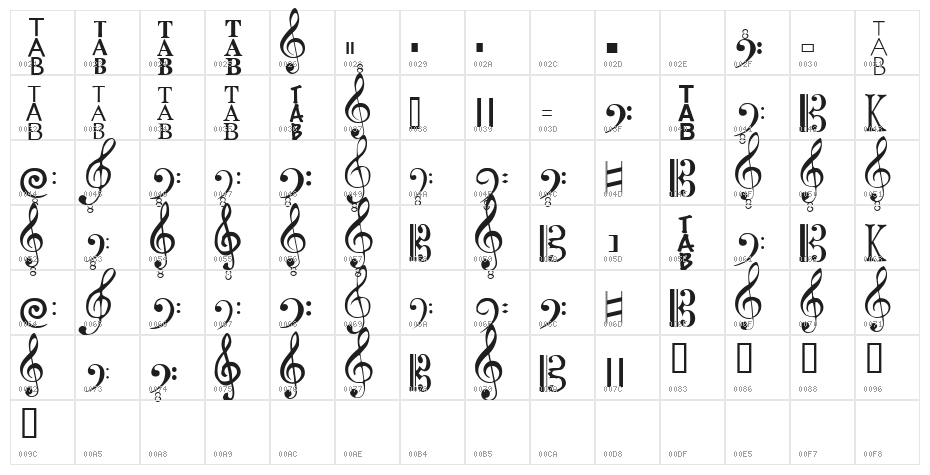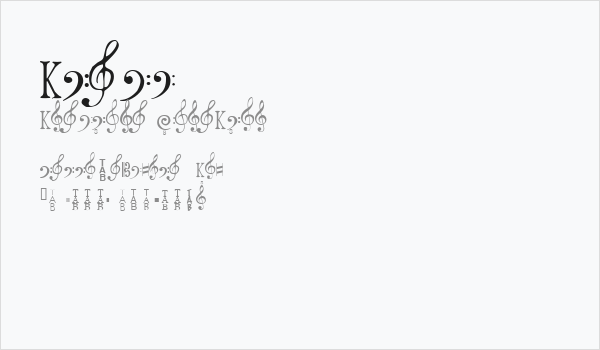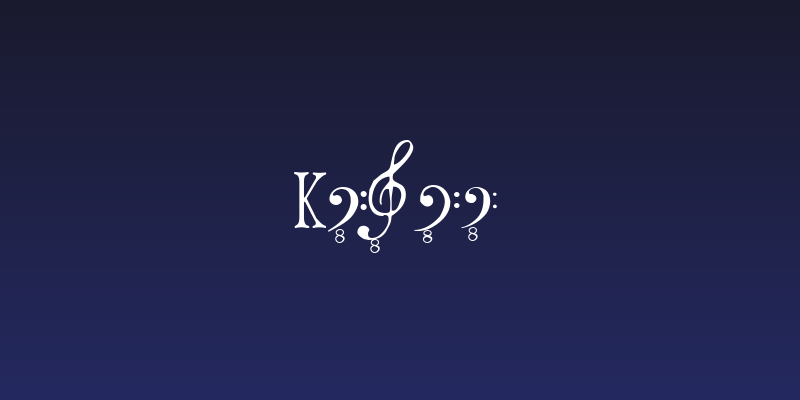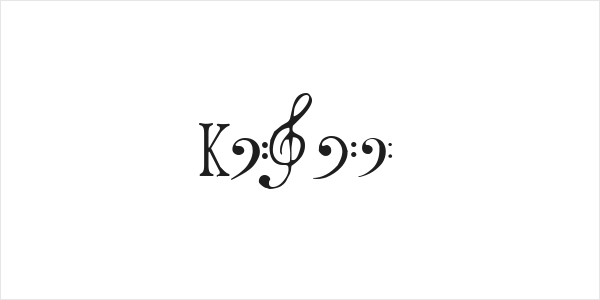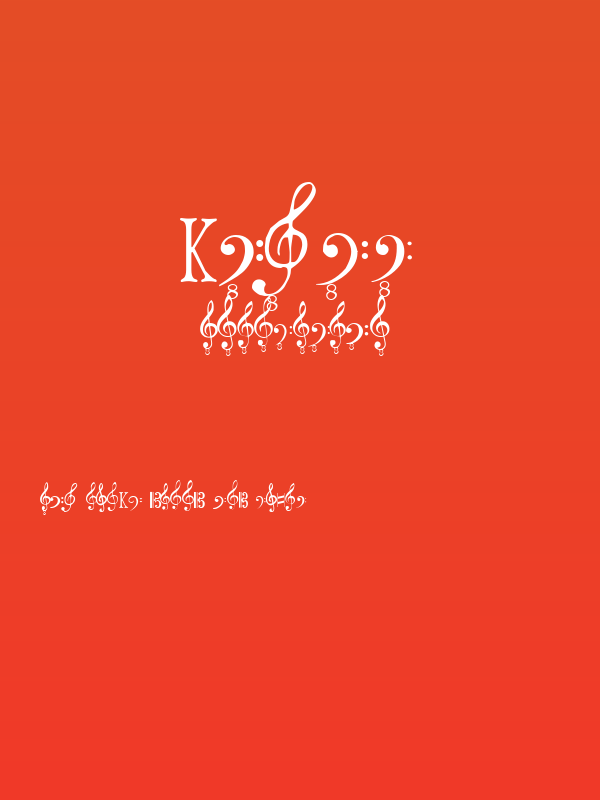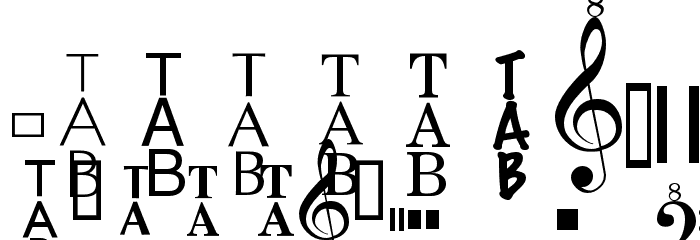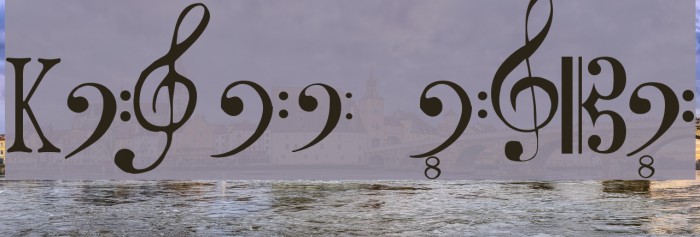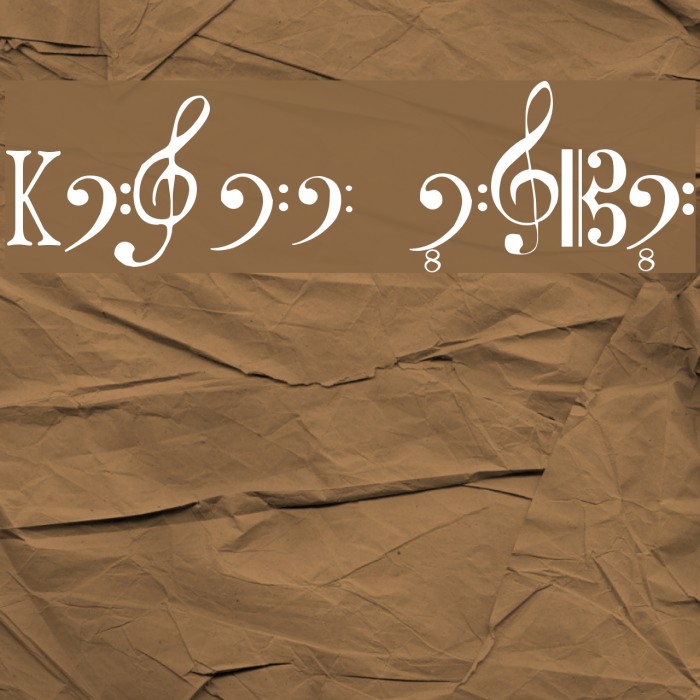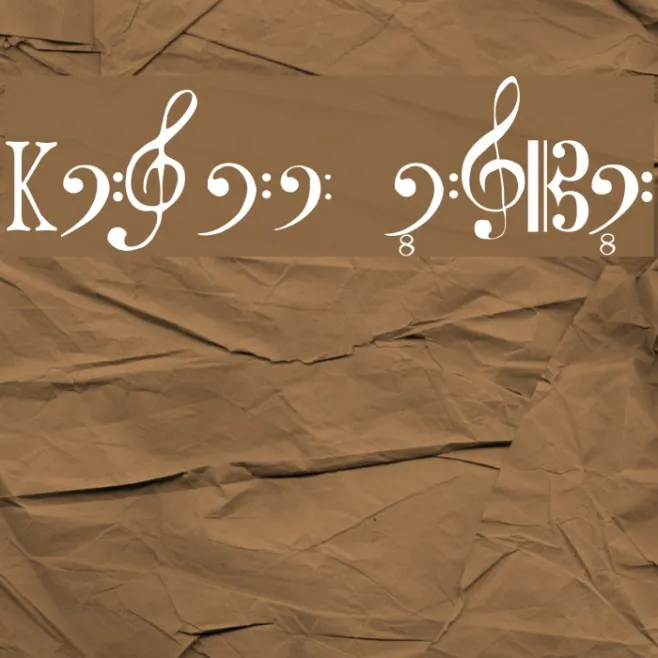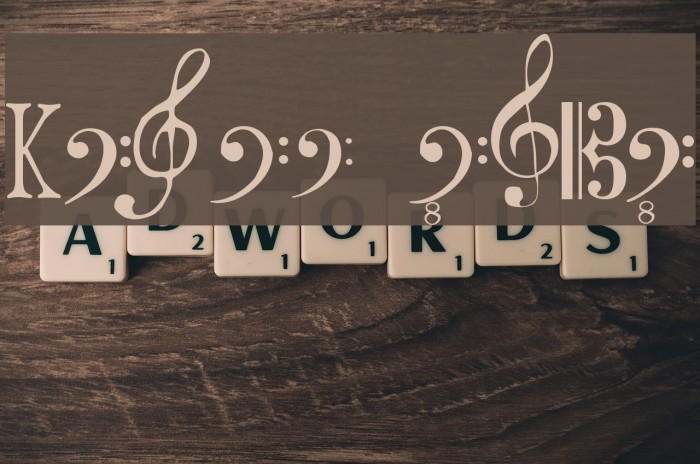
Clefs Font
Clefs Description
This image features a collection of musical clefs and symbols rather than a traditional font. The design includes various representations of treble, bass, and other clefs, each with unique stylistic elements. The clefs are depicted with artistic flourishes, emphasizing curves and bold lines. The symbols are arranged in a way that highlights their decorative nature, making them suitable for musical notation or themed graphic design projects. The overall presentation is visually striking, with a focus on the aesthetic appeal of musical symbols.
| Use Case | Logos, Decorative elements |
| Proposed Projects | Ideal for music-themed graphic design, educational materials, or decorative elements in musical publications. |